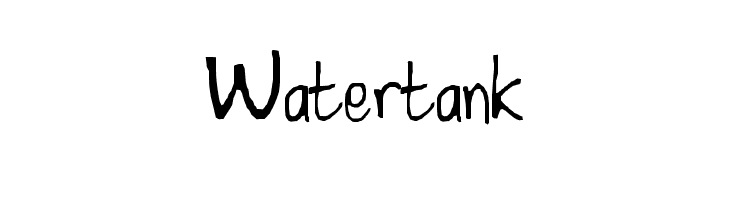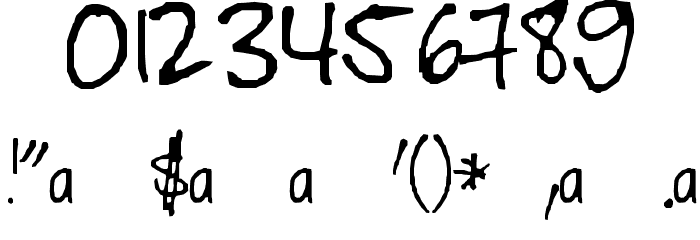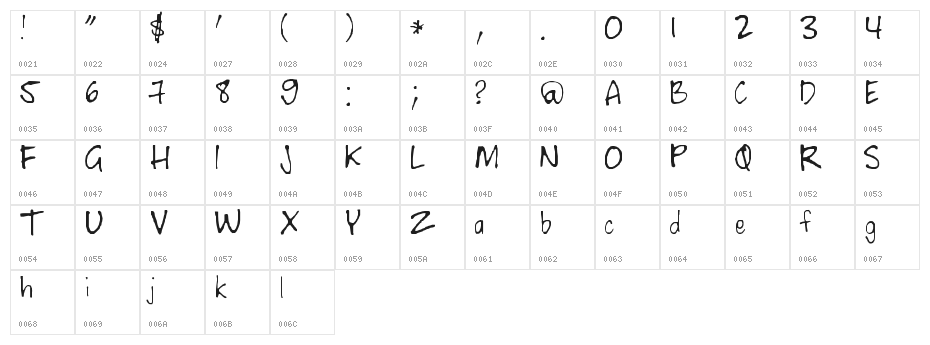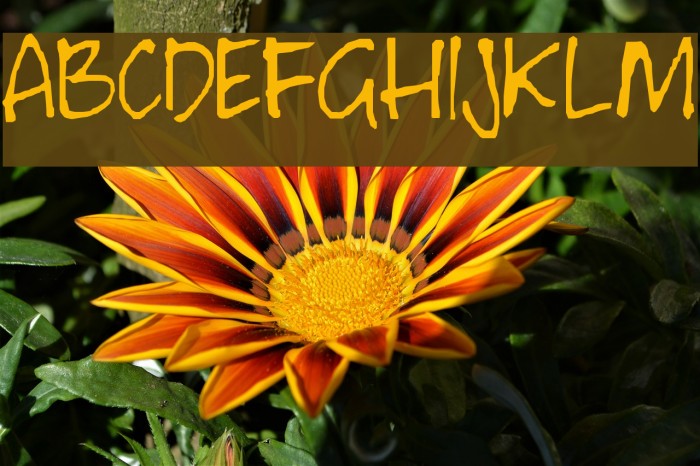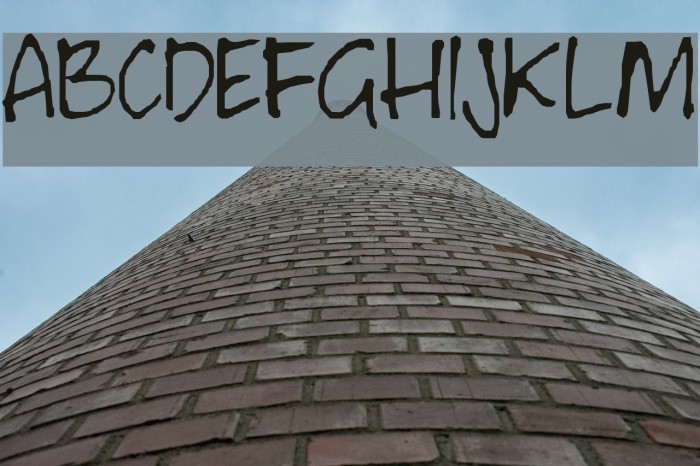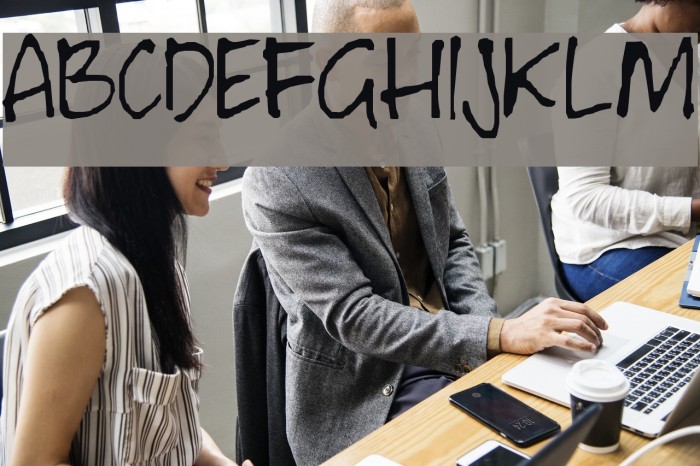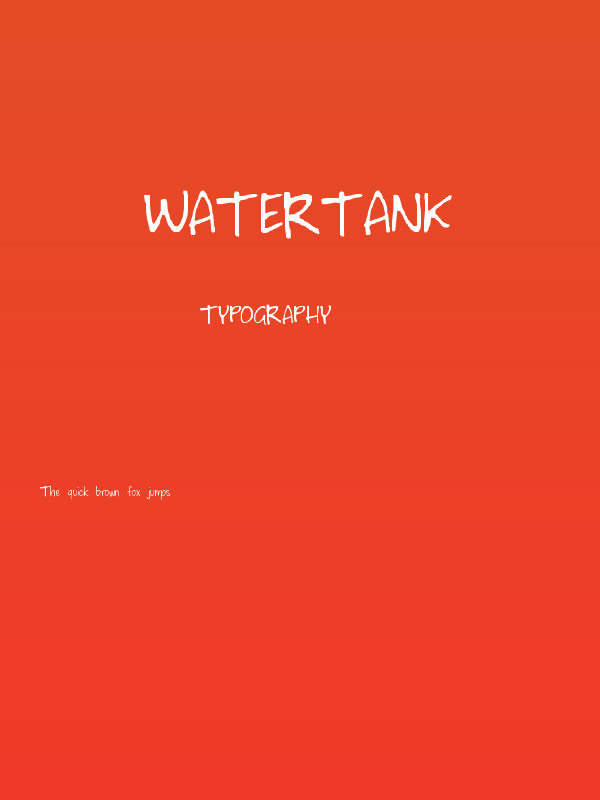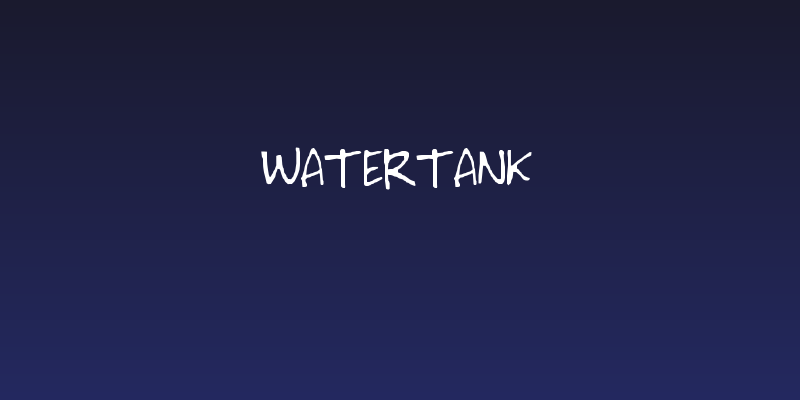
Watertank Font
Watertank Description
This font features a playful, handwritten style with a casual and informal appearance. The letters are slightly irregular, giving them a natural, organic feel. The uppercase characters are bold and prominent, while the lowercase letters maintain a consistent flow, enhancing readability. The numbers are distinct and easy to differentiate, matching the overall whimsical aesthetic. Special characters are creatively designed, adding to the font's unique charm. The strokes vary in thickness, contributing to a dynamic and lively look.
| Proposed Projects | Ideal for greeting cards, children's books, playful branding, and casual invitations. |